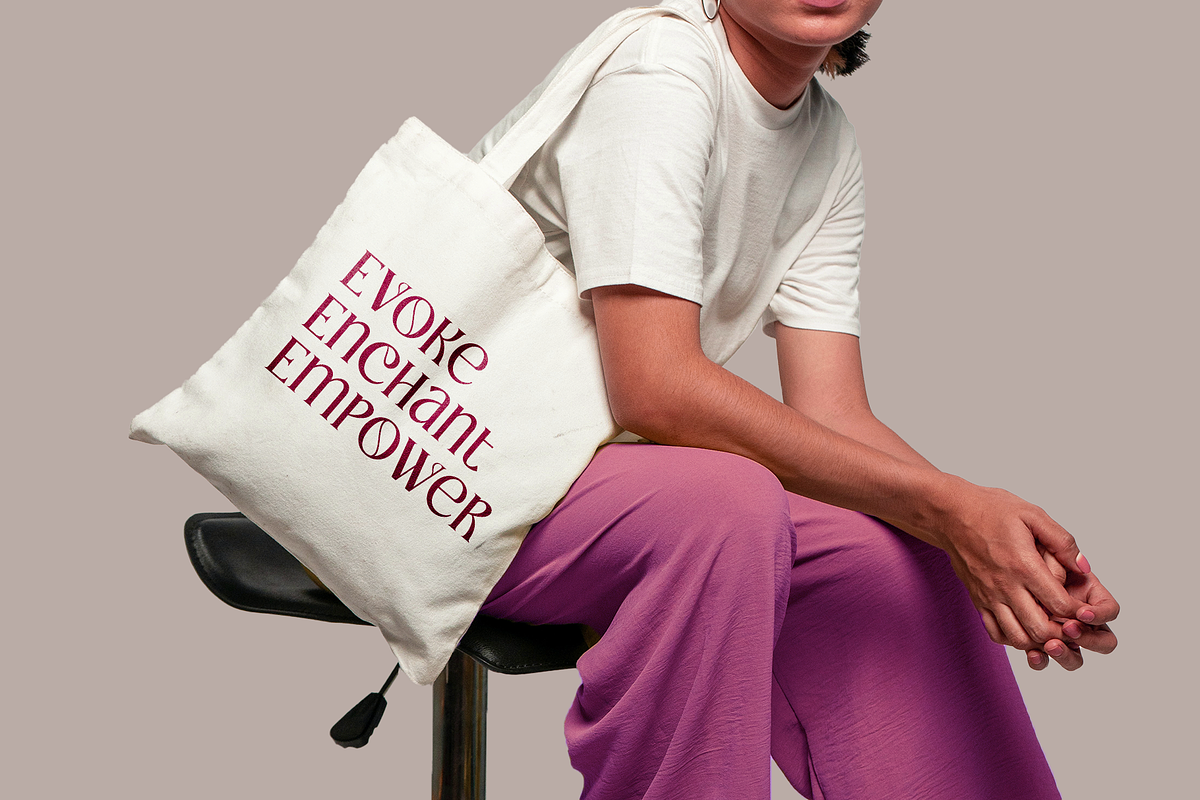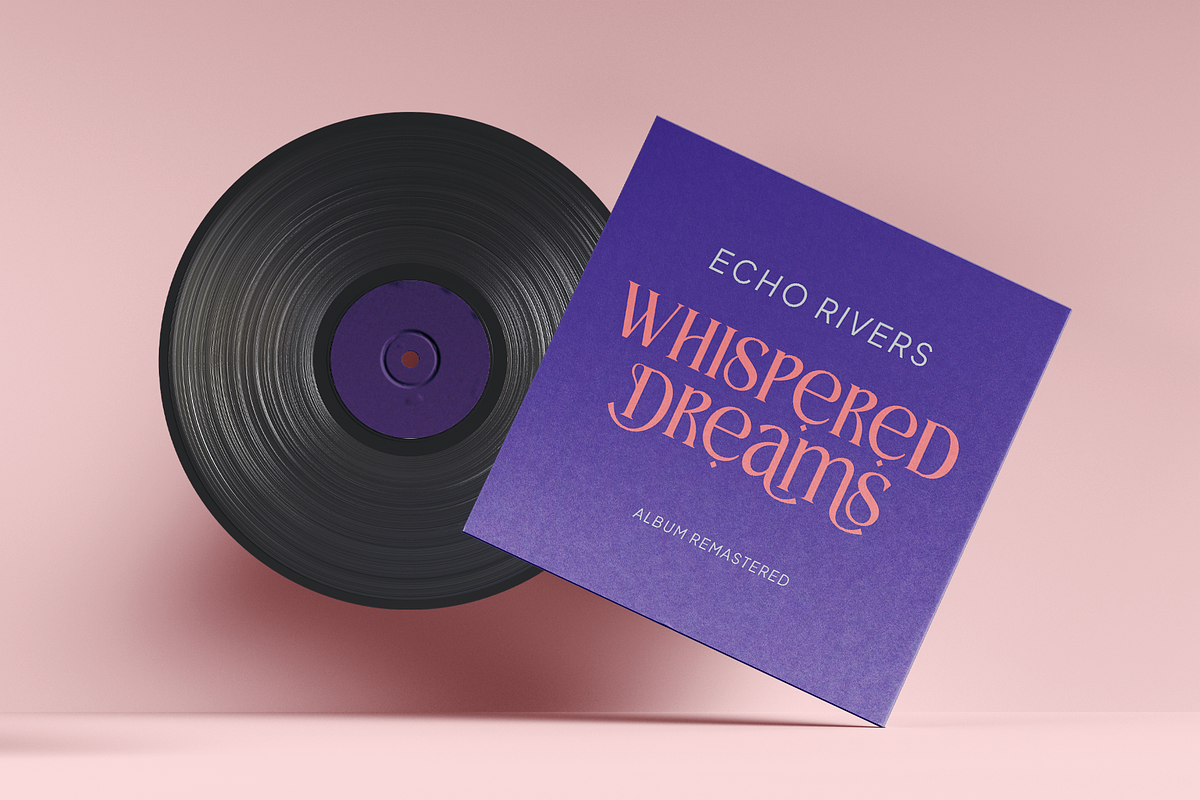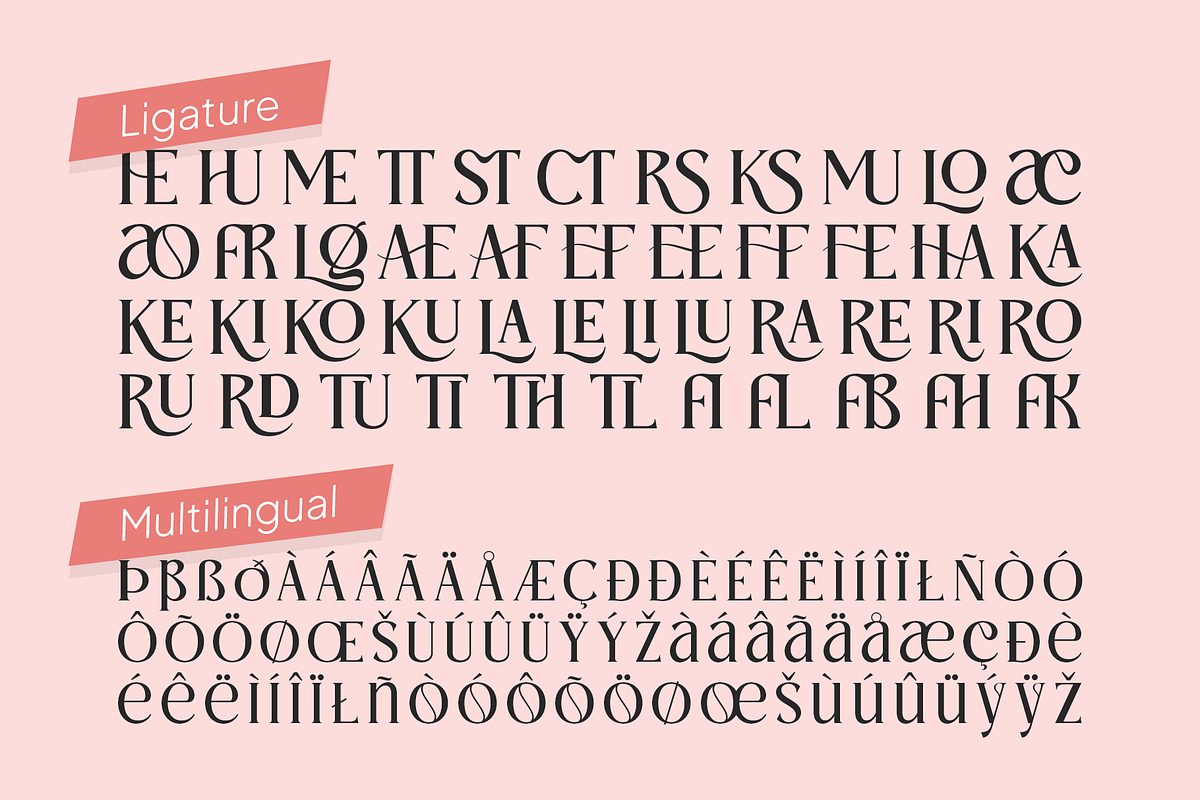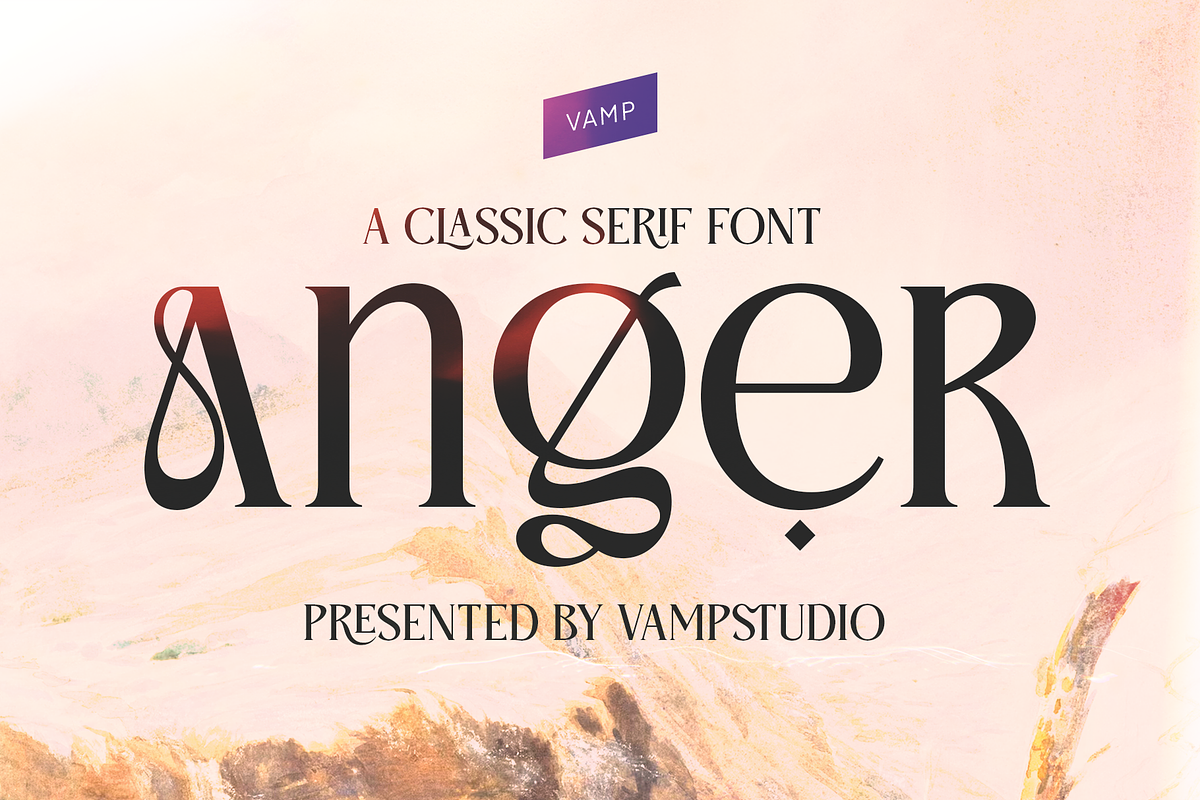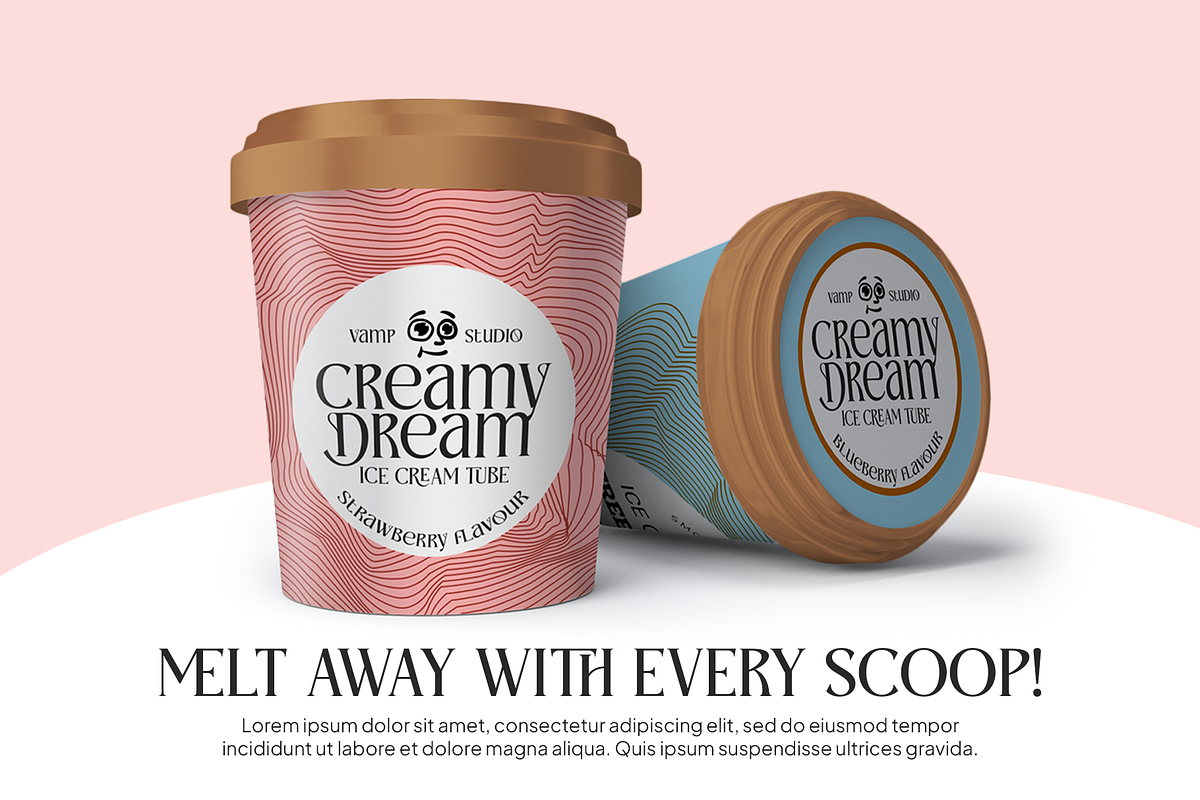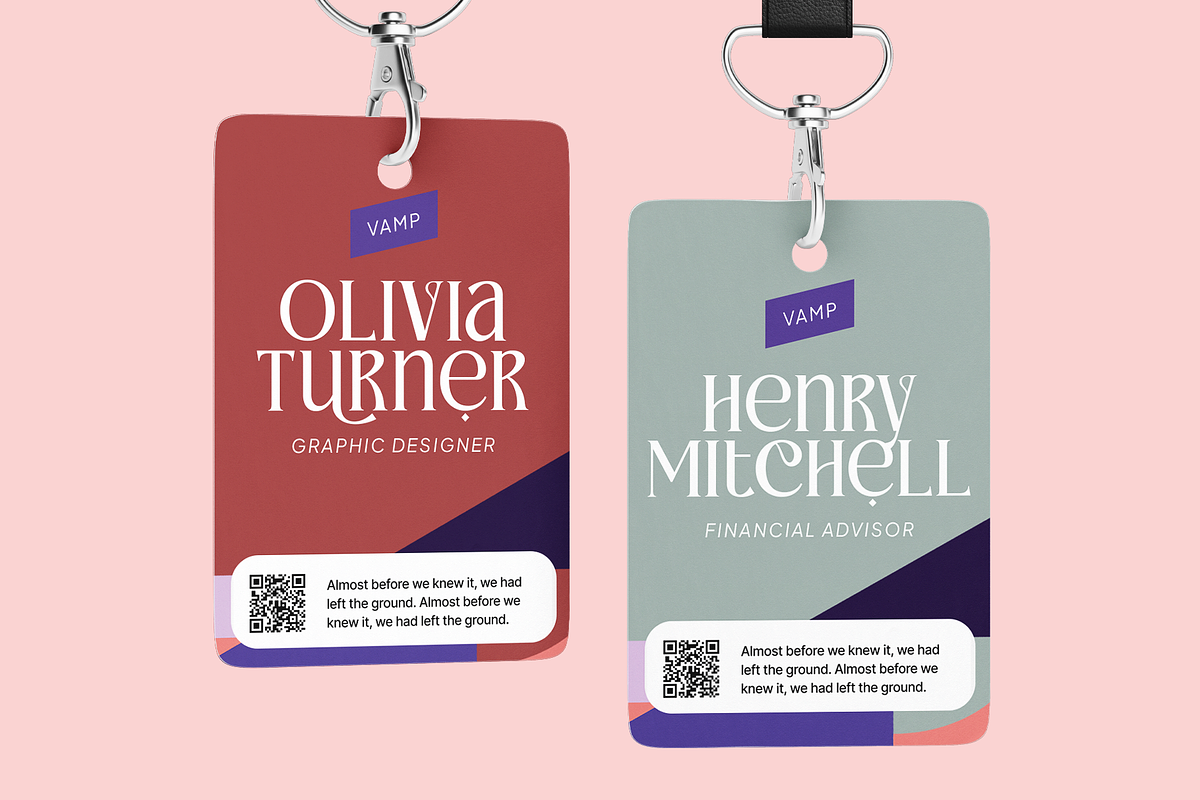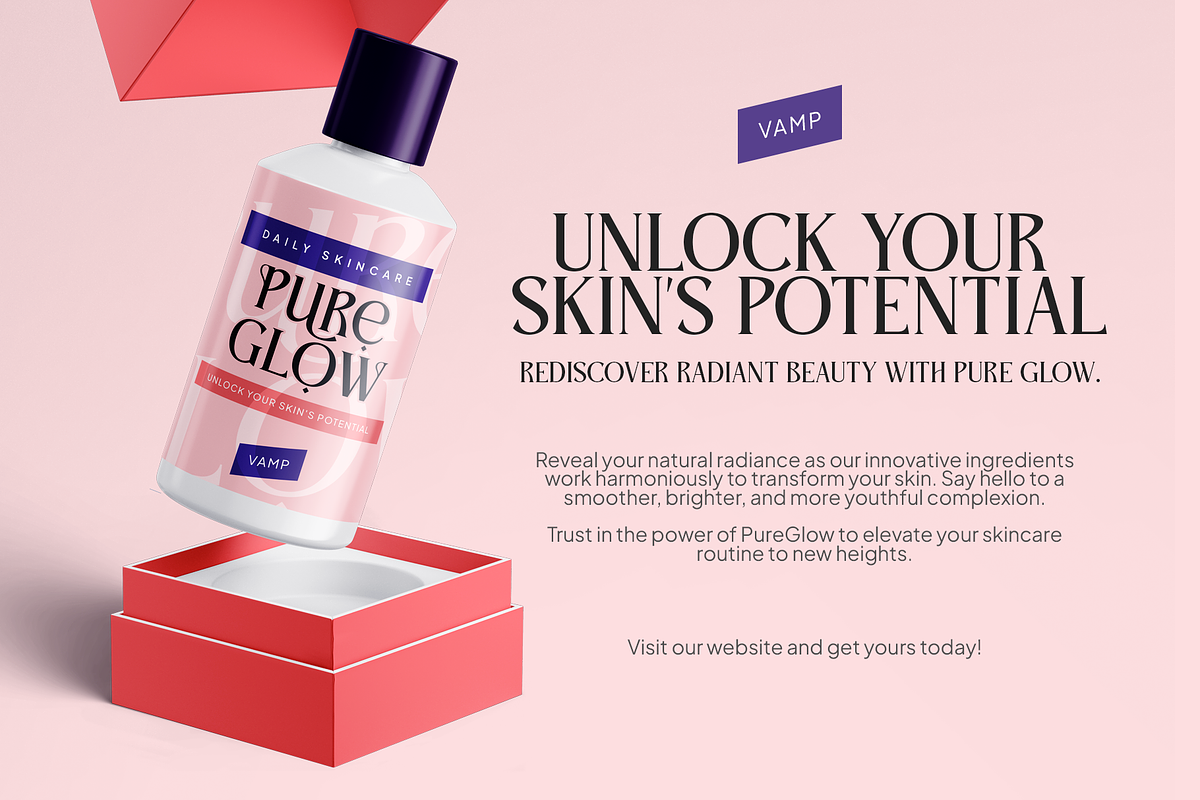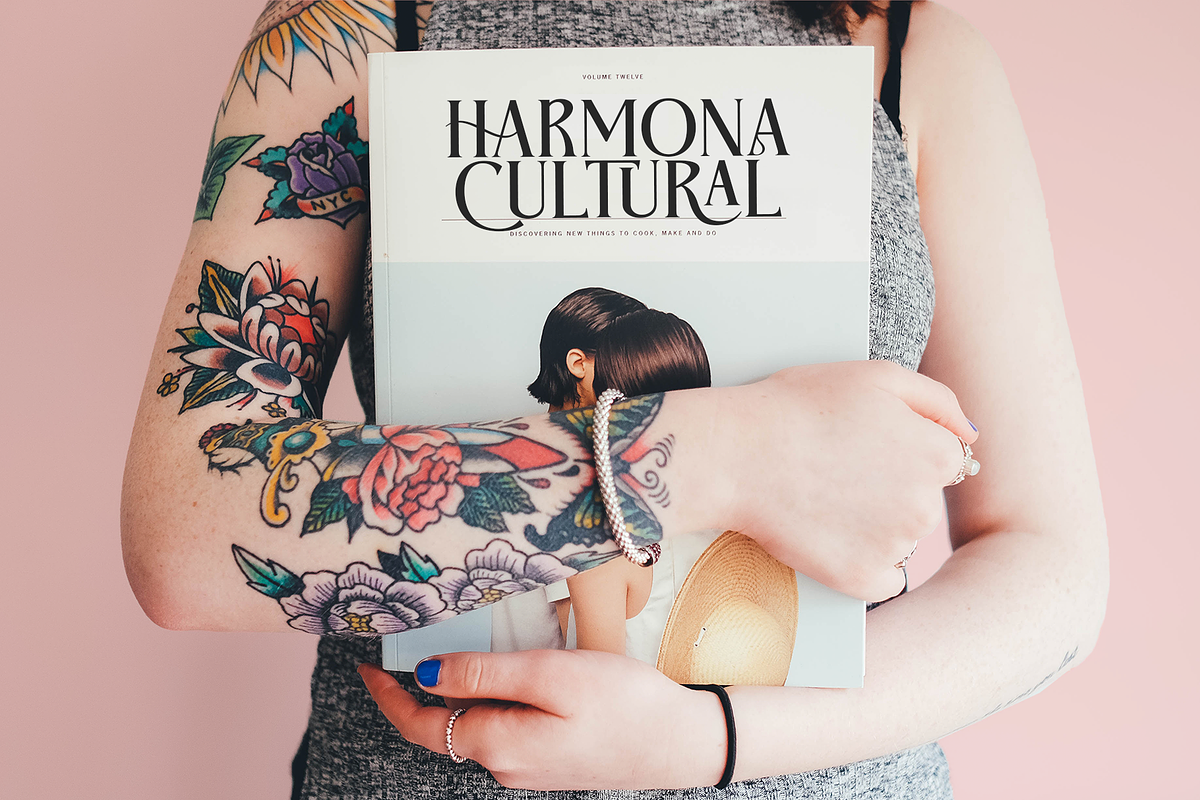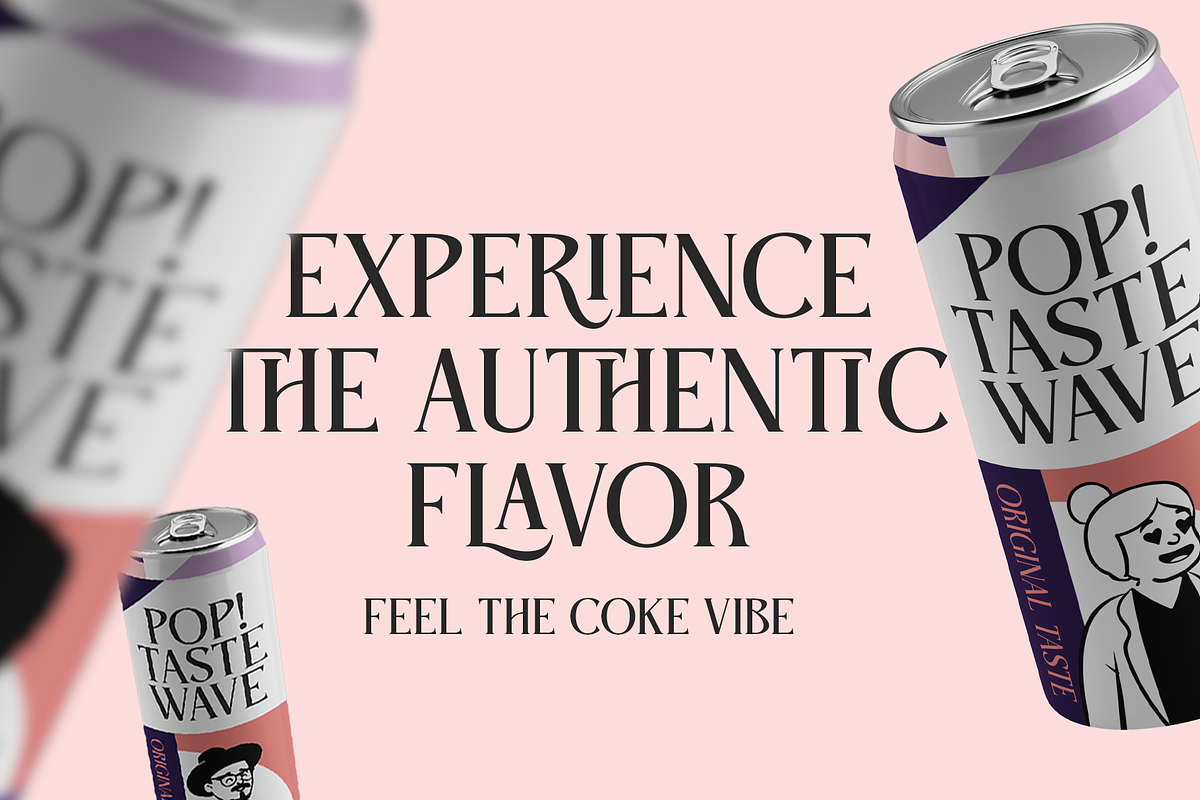
Anger Classic Serif Font
Anger is a classic elegant and stylish serif typeface. This font looks very simple, clean, and elegant. Specially designed by skilled hands makes this font is the perfect fit for all your big projects.
Anger is perfect for branding projects, logo, wedding designs, social media posts, advertisements, product packaging, product designs, label, photography, watermark, invitation, stationery and any projects that need luxury and modern taste.
- Ligature & Alternate